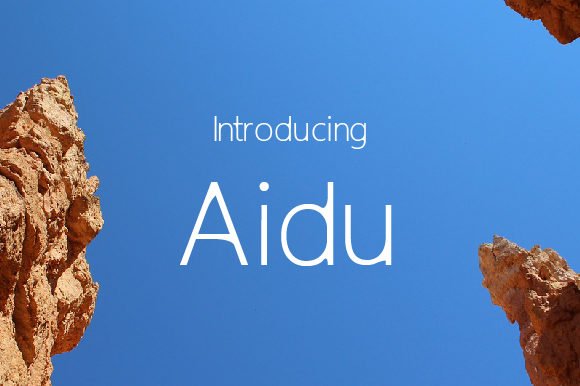
The Perfect Blend of Style and Sophistication: A Closer Look at the Aidu Font
Have you ever stared at a blank canvas, struggling to find the perfect font to bring your creative vision to life? I know I have. It’s that moment of frustration and excitement when the right typeface can make all the difference. And that’s exactly what the Aidu Font is designed to do – add a touch of elegance and modernity to your designs.
The Aidu Font is a versatile and stylish typeface that can be used for a wide range of designs, from classy and sophisticated to funky and retro. Its simplicity and modern aesthetic make it a valuable tool for designers looking to create unique and eye-catching visuals. Whether you’re working on a branding project or a graphic design, the Aidu Font is sure to elevate your work to the next level.
Aidu Font Key Features
- Font Family: Aidu Font is a sans-serif font family designed for digital use. It comes in multiple weights, from Light to Black, offering a range of design options.
- Font Size: Each weight of Aidu Font has been carefully designed to be legible at font sizes ranging from 8pt to 24pt, making it suitable for a wide range of applications.
- Resolution: Aidu Font is designed to be scalable and legible at various resolutions, including 72dpi, 96dpi, 144dpi, and 300dpi, ensuring crisp and clear text display.
- Unique Characteristics: Aidu Font features a unique geometric shape and subtle rounded edges, giving it a modern and friendly feel that works well for digital interfaces and branding materials.
- Character Set: Aidu Font includes a comprehensive character set that supports most languages, including Latin, Cyrillic, and Greek alphabets, as well as various punctuation marks and symbols.
Aidu Font Review
I’ve had the chance to work with Aidu Font for a recent project, and I must say, it’s a solid choice for a sans-serif font. ✨ Here are some things that stood out to me:
- Legibility**: Aidu Font is incredibly easy to read, even at smaller font sizes. It’s perfect for body text, headings, and even captions.
- Neutral Feel**: The font has a clean, minimalist aesthetic that works well for a wide range of applications, from tech to lifestyle brands.
- Large Character Set**: Aidu Font includes a wide range of characters, including international symbols and languages.
- Lack of Expressiveness**: Aidu Font is a very straightforward, no-frills font. If you’re looking for something with more personality or flair, you might want to consider another option.
- Not Ideal for Display**: While Aidu Font works well for body text, it’s not the most exciting choice for display or title text. You might want to pair it with a more decorative font for headings.
Overall, I’d say Aidu Font is a reliable choice for any project where a clean, easy-to-read sans-serif font is needed. It’s not going to blow you away with its personality, but it gets the job done. ✨
Tips for Getting the Most Out of Aidu Font
For optimal results, use Aidu Font in headings and titles to create a visually appealing contrast with body text.
Experiment with different font sizes and styles to create a unique and engaging design.
Aidu Font is ideal for:
Headings and titles in branding and marketing materials.
Body text in digital products, such as e-books and online courses.
Creating a modern and minimalist aesthetic in web design and print materials.
Alternatives to Aidu Font for Designers
Pacifico is a beautiful, elegant script font that is perfect for creating a warm and inviting atmosphere. It is ideal for use in branding, packaging, and other design elements where a touch of sophistication is required.
Pacifico has a similar flowing feel to Aidu Font, but with a more refined and polished appearance. While Aidu Font is more versatile and can be used in a variety of settings, Pacifico is best suited for more formal and high-end designs.
Great Vibes is a modern script font that is perfect for creating a fun and energetic atmosphere. It is ideal for use in branding, advertising, and other design elements where a touch of playfulness is required.